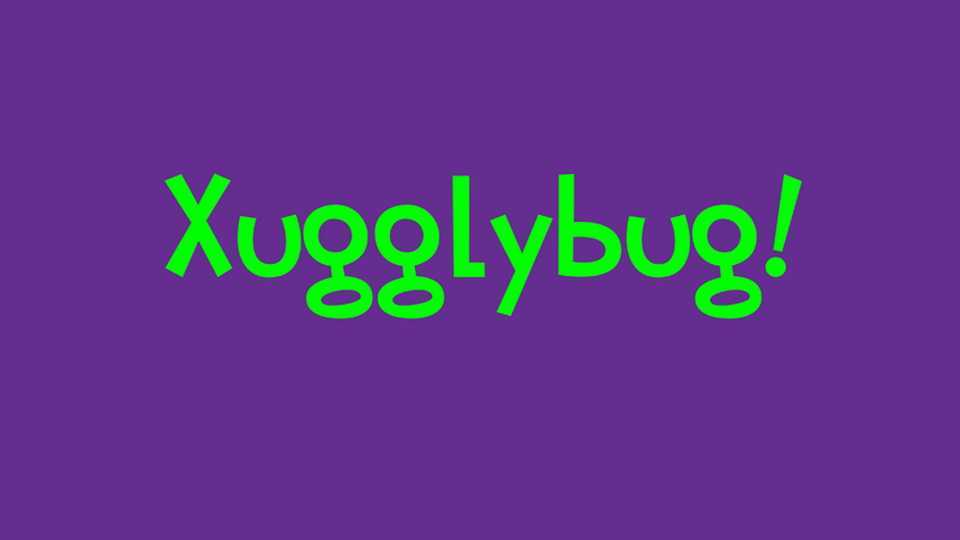
Download Xugglybug font, a fun and playful hand-crafted typeface with a youthful feel. Xugglybug font is ideal for children and comic books, cartoons, posters and games.
Designer: Liam Butler